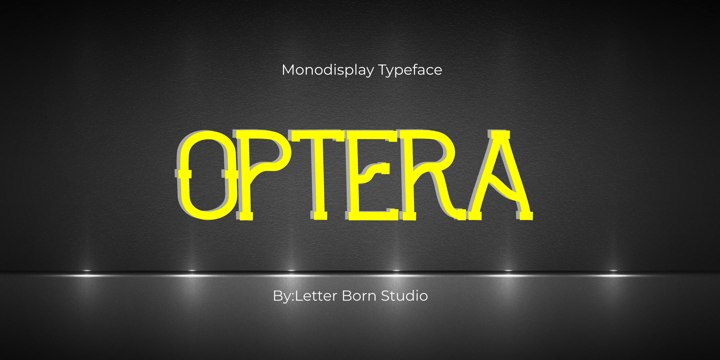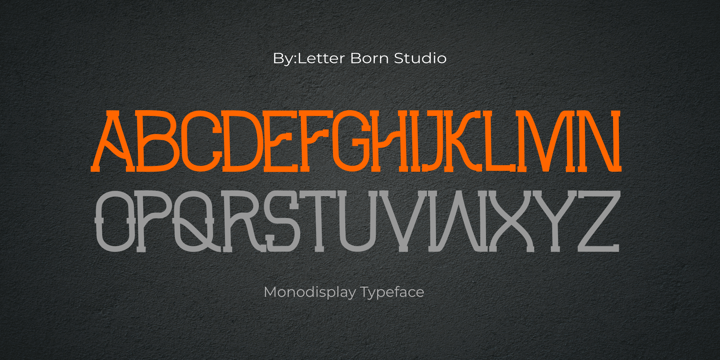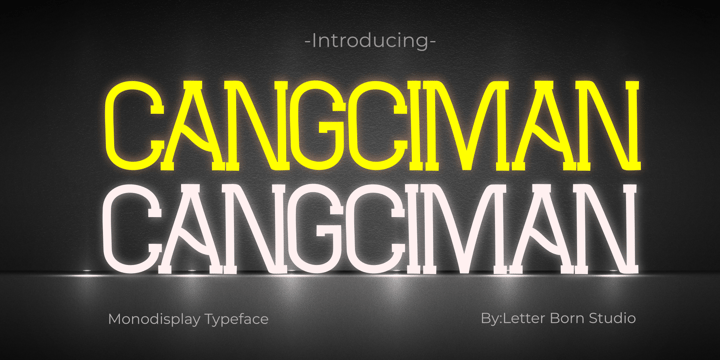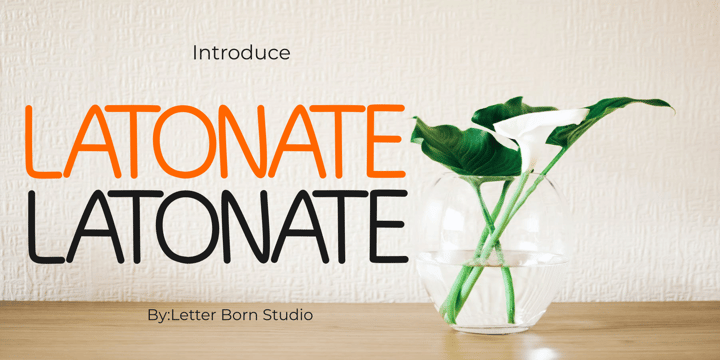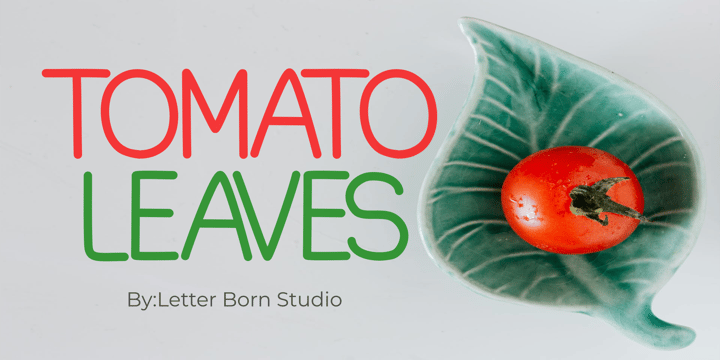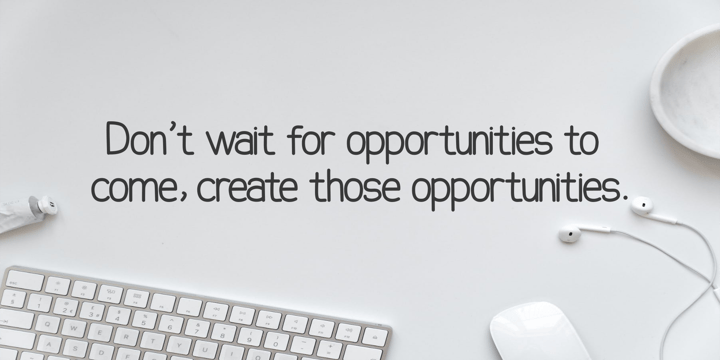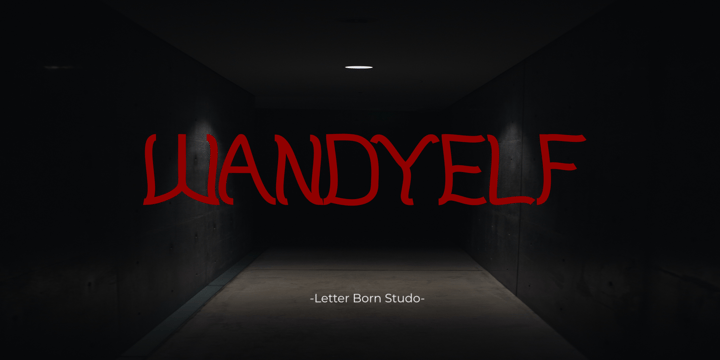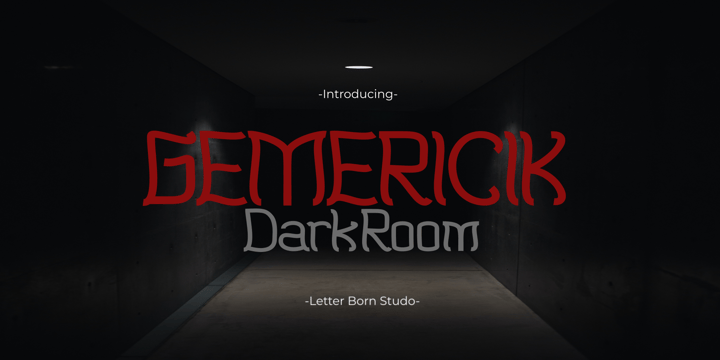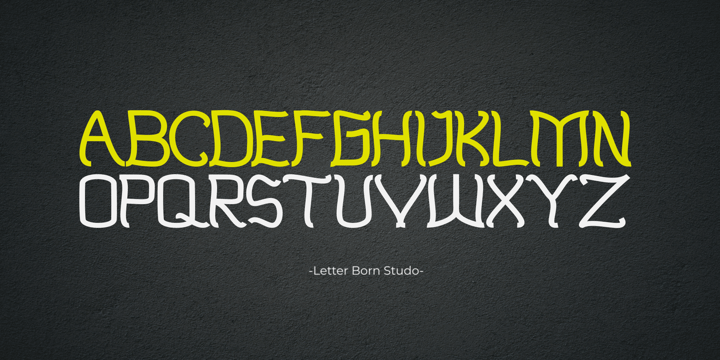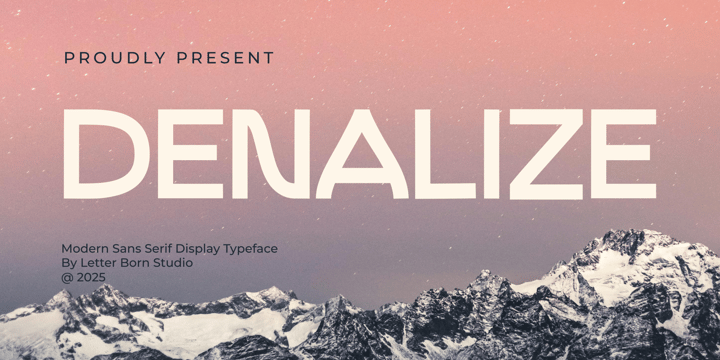
Firman Satrio is an Indonesian designer and typographer, founder of Letter Born Studio, a design foundry focused on creating unique and high-quality fonts. Known for blending classic and modern elements, Firman’s work is characterized by creativity, attention to detail, and a deep passion for typography. His fonts are recognized both in Indonesia and internationally, contributing to the design community with innovative and expressive typefaces